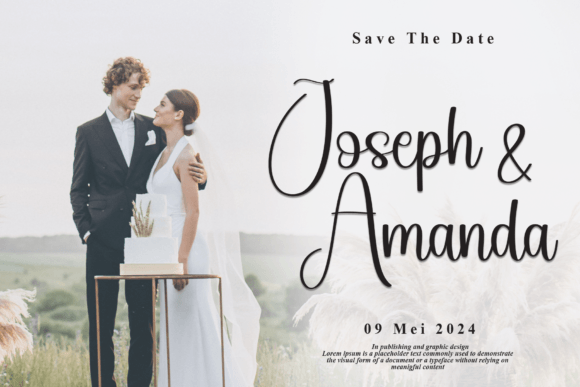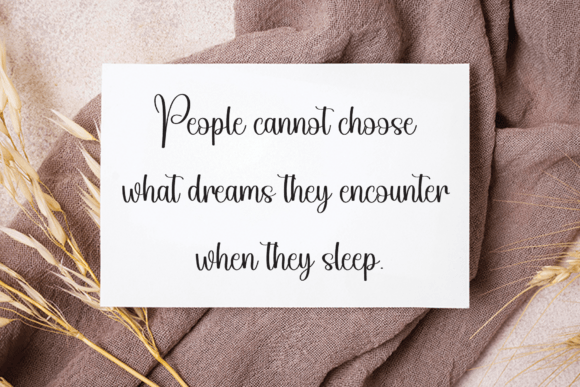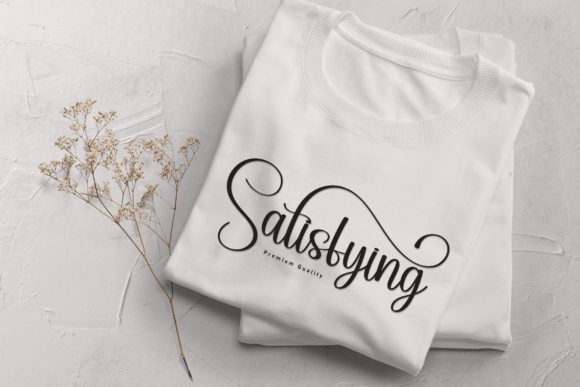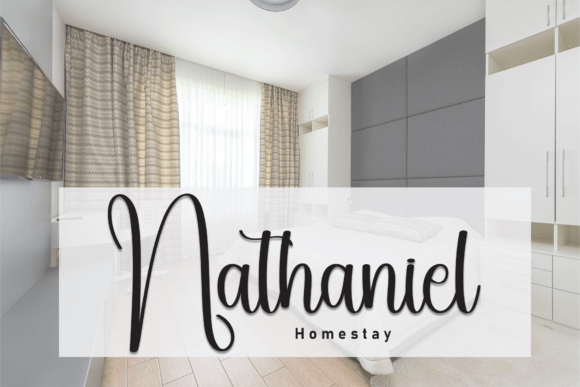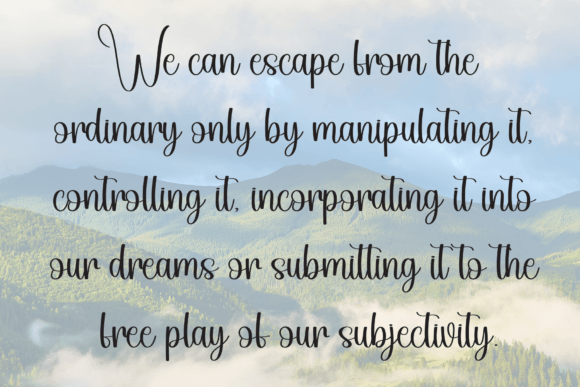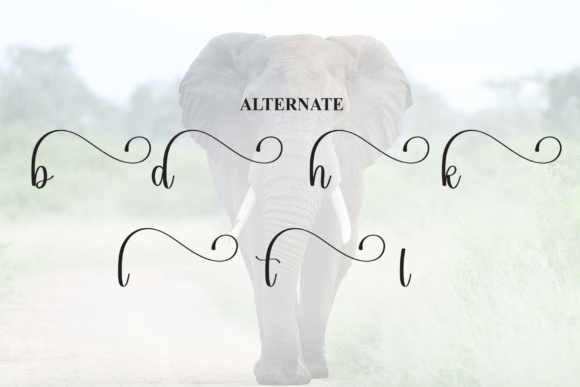
Introducing Elephant Font: The Ultimate Elegance for Your Designs
Are you a designer or crafter looking for a font that exudes elegance and sophistication? Look no further than Elephant Font, a stylish and incredibly elegant script font that is perfect for a variety of design projects. From wedding invitations to business cards, Elephant Font is the perfect choice for adding a touch of handwritten charm to your work.
What Makes Elephant Font So Special?
Elephant Font is a beautifully crafted script font that features flowing lines, intricate details, and a touch of whimsy. Its elegant and refined appearance makes it perfect for designs that require a high level of sophistication, such as wedding invitations, thank you cards, and greeting cards. The font’s unique and stylish appearance also makes it ideal for logos, business cards, and other marketing materials.
Elephant Font is a popular choice for wedding and event designs, and for good reason. Its elegant and romantic appearance makes it perfect for wedding invitations, save the dates, and other wedding-related materials. The font’s flowing lines and intricate details also make it ideal for event branding, including logos, programs, and menus.
Adding a Personal Touch to Your Designs
One of the best things about Elephant Font is its ability to add a personal touch to your designs. The font’s handwritten appearance makes it feel more intimate and personal, which is perfect for designs that require a human touch. Whether you’re creating a custom logo, business card, or greeting card, Elephant Font is the perfect choice for adding a touch of personality to your work.
Key Features of Elephant Font
- Elegant and refined appearance: Elephant Font features a beautifully crafted script font with flowing lines, intricate details, and a touch of whimsy.
- Perfect for wedding and event designs: The font’s elegant and romantic appearance makes it perfect for wedding invitations, save the dates, and other wedding-related materials.
- Handwritten appearance: Elephant Font’s handwritten appearance makes it feel more intimate and personal, which is perfect for designs that require a human touch.
- Versatile: The font is perfect for a variety of design projects, including logos, business cards, greeting cards, and more.
Tips for Using Elephant Font in Your Designs
Here are a few tips for using Elephant Font in your designs:
- Use it sparingly: Elephant Font is a elegant and refined font, so it’s best to use it sparingly to avoid overwhelming your design.
- Pair it with a simple font: Pair Elephant Font with a simple font to create a beautiful contrast and make your design stand out.
- Experiment with different colors: Elephant Font looks beautiful in a variety of colors, so don’t be afraid to experiment and find the perfect color for your design.
Elephant Font is a stylish and incredibly elegant script font that is perfect for designers and crafters looking to add a touch of handwritten charm to their work. Its elegant and refined appearance makes it perfect for a variety of design projects, including wedding invitations, thank you cards, quotes, greeting cards, logos, business cards, and more. With its unique and stylish appearance, Elephant Font is sure to elevate your designs and make them stand out.